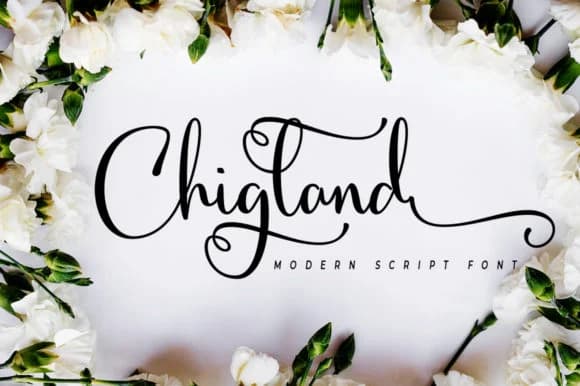
Chigland by akrtype is a playful handwritten script that combines genuine personality with real functionality. The design walks that delicate line between feeling authentically hand-drawn and remaining legible enough for commercial work. Its confident, sketched letterforms have a relaxed, unpretentious energy that reads as warm and approachable without tipping into precious territory.
You'll find this script especially valuable for wedding invitation suites, where its character adds warmth without sacrificing sophistication. It shines on boutique product packaging projects like craft beer labels, artisan tea boxes, and small-batch cosmetics branding. Custom greeting cards benefit from its genuine-feeling strokes, and independent designers often reach for this style when creating handmade-aesthetic social media graphics or brand collateral. Etsy sellers particularly gravitate toward fonts like Chigland because they communicate authenticity and human effort without requiring actual hand-lettering or calligraphy skills.
What makes Chigland work across so many applications is its refusal to feel overwrought or trendy. It carries real personality without shouting, which means it transitions smoothly between print and digital contexts alike. If you're building a library of script fonts that don't feel generic, Chigland is worth exploring on Creative Fabrica.
Chigland Font is a script font that shines as a display or heading face. Pair it with a clean sans-serif or serif font for body text β the contrast creates a clear hierarchy while the two styles stay balanced and easy to read.
Chigland Font